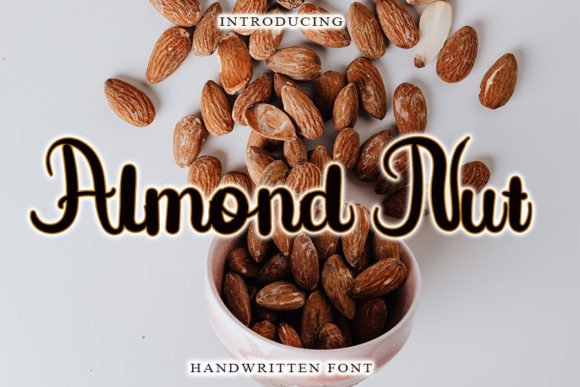
That’s where the Almond Nut Font comes in – a beautifully crafted handwritten font that adds a touch of elegance to any design. Whether you’re a seasoned designer or a DIY enthusiast, this font is perfect for creating stunning visuals for your Instagram posts, crafting unique calligraphy scripts, or elevating your personal brand. With Almond Nut Font, you’ll be able to turn your creative ideas into stunning works of art, making it a valuable addition to any designer’s toolkit.
Almond Nut Font Key Features
- Font Family: Almond Nut Font is a unique, handwritten font with a nutty and whimsical feel.
- Character Set: Includes a wide range of characters, including uppercase and lowercase letters, numbers, and punctuation marks.
- Unique Characteristics: Features a distinctive, hand-drawn style with irregular lines and subtle texture, giving it a natural and organic feel.
Almond Nut Font Review
First off, let me say that the Almond Nut Font is a unique and charming addition to any design project. The font’s quirky personality and eclectic flair make it stand out in a crowd. I particularly love the way the font’s rounded edges and soft curves evoke a sense of whimsy and playfulness. ✨
Here are some specific features that I think make the Almond Nut Font shine:
- Extremely versatile – the font can be used for a wide range of projects, from children’s books to food labels
- Perfect for adding a touch of personality to branding and marketing materials
- Easy to read, even at small font sizes
However, there are a few limitations that I think designers should be aware of:
- May not be suitable for formal or professional applications, due to its playful and informal feel
- Can be a bit difficult to use in large blocks of text, as the font’s quirky personality can start to feel overwhelming
Overall, I think the Almond Nut Font is a fantastic addition to any designer’s toolkit. While it may not be suitable for every project, it’s a great choice for designers looking to add a touch of whimsy and personality to their work. With a little bit of creativity and experimentation, I think this font has the potential to become a design favorite.
Use the Almond Nut Font for elegant and sophisticated designs, such as wedding invitations, luxury branding, and high-end packaging.
Experiment with different font sizes and styles to create visual interest and hierarchy in your design.
Combine the Almond Nut Font with other elegant fonts to create a unique and stylish typography.
Alternatives to Almond Nut Font for Designers
Great Vibes is a beautiful, handwritten script font perfect for creating a friendly and approachable atmosphere. It’s ideal for use in headings, logos, and other design elements where a personal touch is desired. Compared to Almond Nut Font, Great Vibes has a more relaxed and casual feel, making it suitable for modern designs and branding.
Alex Brush is a elegant, brush script font that exudes sophistication and refinement. It’s perfect for use in high-end designs, such as luxury branding, weddings, and fine art projects. Compared to Almond Nut Font, Alex Brush has a more polished and refined feel, making it ideal for creating a sense of luxury and sophistication.